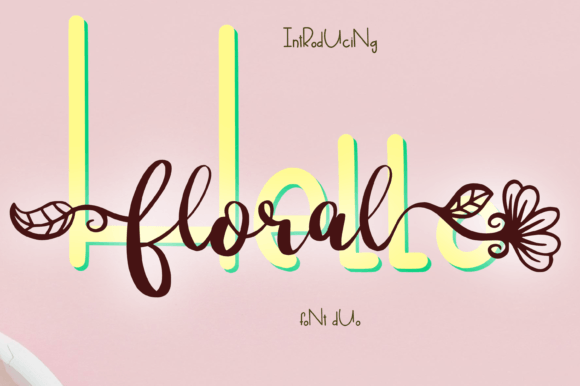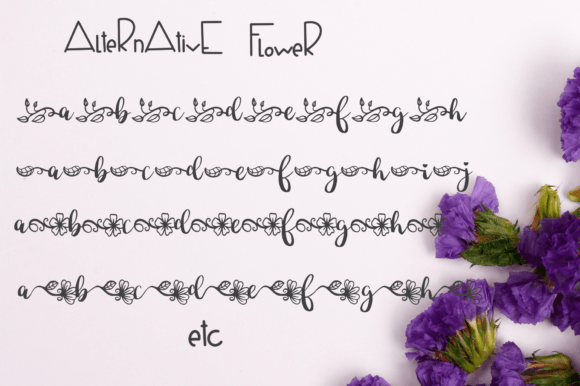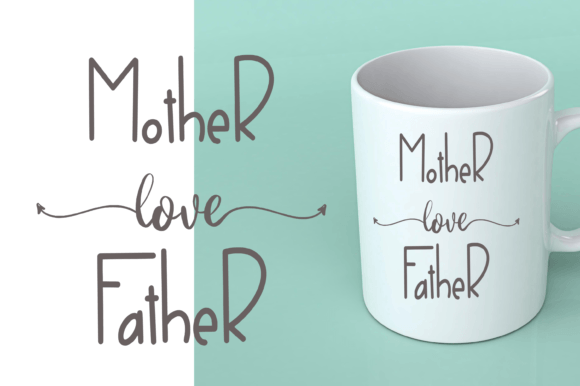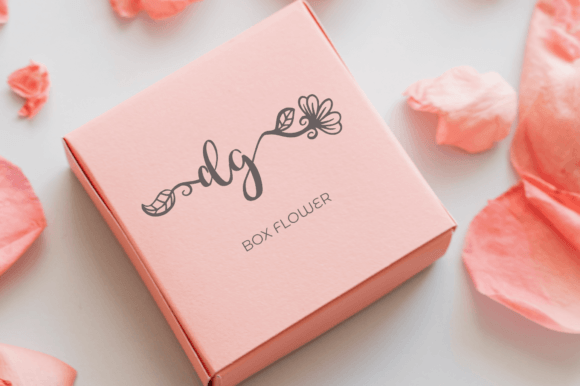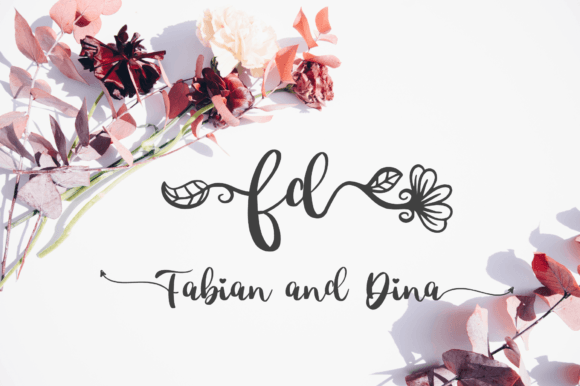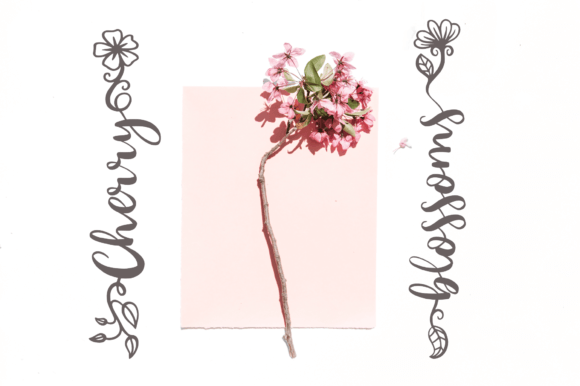
Hello Floral Font: Elevate Your Designs with this Stunning Script Font
Are you on the hunt for a beautiful, modern script font to elevate your designs? Look no further than the Hello Floral Font, also known as Floral- Duo Font With Extras. This trendy and feminine font is perfect for crafters, designers, and anyone looking to add a touch of elegance to their projects.
What Makes Hello Floral Font So Special?
Floral- Duo Font With Extras is a new modern script font that boasts an irregular baseline, giving it a unique and eye-catching charm. Its trendy and feminine style makes it perfect for a variety of design projects, from wedding invitations and thank-you cards to quotes, greeting cards, logos, and business cards.
Perfect for Wedding and Stationery Designs
Wedding planners, stationery designers, and crafters will love the Hello Floral Font for its romantic and whimsical feel. The font looks stunning in wedding invitations, save-the-date cards, and other stationery designs. Its elegant and sophisticated style makes it perfect for formal events, while its playful and irregular baseline adds a touch of whimsy.
Designed for Ink and Watercolor Projects
One of the best things about the Hello Floral Font is its versatility. It’s perfect for use in ink or watercolors, making it a great choice for crafters and designers who love to work with these mediums. The font’s beautiful, flowing lines and irregular baseline make it ideal for creating stunning watercolor designs, while its clear and legible letters ensure that your ink projects will look professional and polished.
Extras and Features
The Hello Floral Font comes with a range of extras and features that make it a valuable addition to any designer’s toolkit. These include:
- Initial letters and terminals
- Alternatives and swashes
- Support for many languages
These extras allow you to customize your designs and add a personal touch. The initial letters and terminals provide a beautiful way to add a decorative touch to your projects, while the alternatives and swashes give you more flexibility and creativity. The font’s support for many languages also makes it a great choice for designers who work with international clients or want to create designs for a global audience.
Why Choose Hello Floral Font?
So why choose the Hello Floral Font for your next design project? Here are just a few reasons:
- Unique and eye-catching style: The font’s irregular baseline and trendy, feminine style make it a standout choice for designers looking for something new and exciting.
- Versatility: The font is perfect for a range of design projects, from wedding invitations and stationery to logos and business cards.
- Ease of use: The font is easy to read and use, making it perfect for designers of all skill levels.
- Customization options: The font comes with a range of extras and features that allow you to customize your designs and add a personal touch.